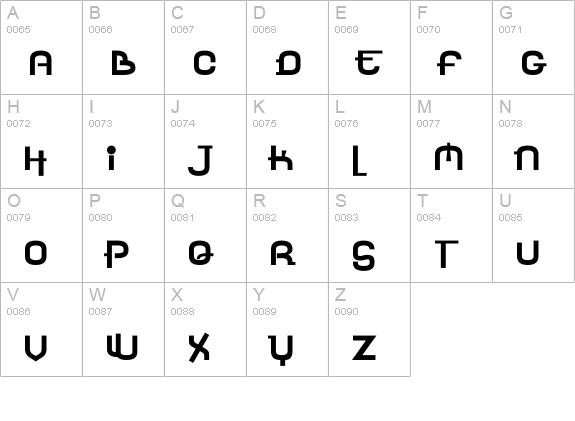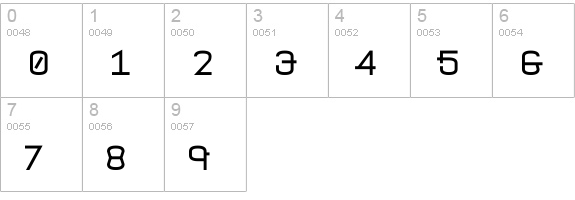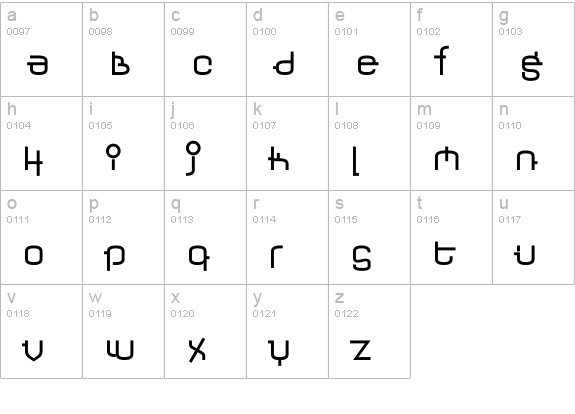
Yerevan Regular is the standard, neutral variant in the Yerevan typeface family \xE2\x80\x94 well suited to general body text, paragraphs, and standard typographic work.
Yerevan Regular font is a timeless and versatile typeface that exudes sophistication and elegance. With its clean lines and classic design, this font is perfect for a wide range of projects, from elegant invitations to professional business documents. The sleek and modern look of Yerevan Regular font makes it a popular choice for designers looking to add a touch of class to their work. Best of all, Yerevan Regular font is available for free download at FontsMarket.com. This means you can easily access this high-quality font without breaking the bank. Whether you're a seasoned designer or just starting out, Yerevan Regular font is a must-have addition to your font collection. Download it today and elevate your designs to the next level!